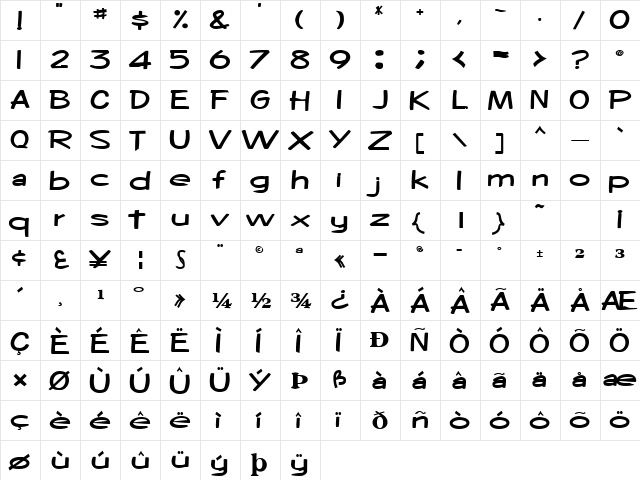
JurasakiFontBold83 Bold
Design Context for JurasakiFontBold83 Typeface
JurasakiFontBold83 is a composed and adaptable typeface that performs quietly and consistently across a wide range of design contexts. The heavy weight commands attention and anchors typographic hierarchies.